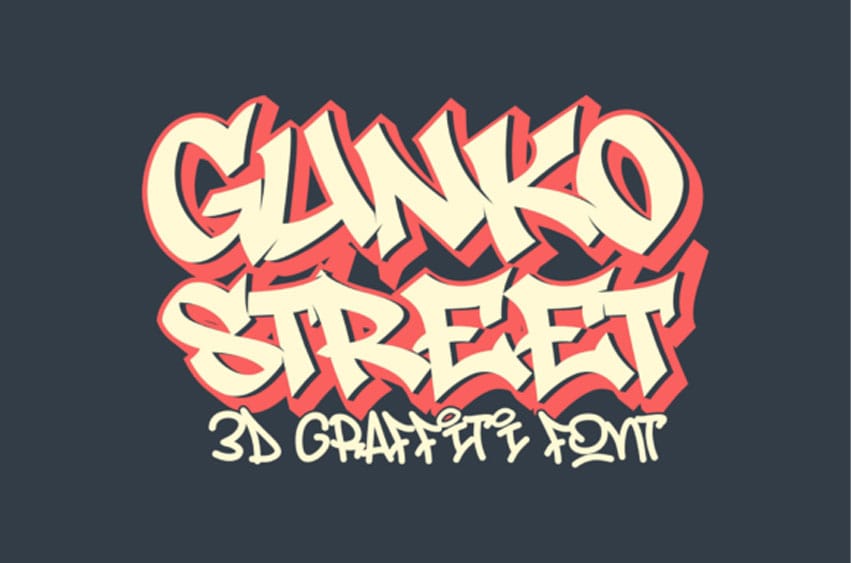
Gunkostreet Regular Font is a daring 3D graffiti font. This typeface seizes street culture’s spirit with its dynamic strokes, sharp edges, and enthralling shadow effect. It’s an ideal choice for streetwear emblem designs, hip-hop event promotional content, merchandise graphics, or high-impact headlines.
Gunko Street font crafts your text with a layered 3D effect, adding depth and motion for a unique, edgy tone. Its application is versatile, from vibrant music album covers to compelling marketing graphics, rendering an authentic graffiti aesthetic enhanced with a contemporary spin. Gunko Street is inherently bold, ensuring your message makes a statement while prioritizing readability across both digital and physical mediums. Included files: Gunko Street in the OTF and TTF formats.